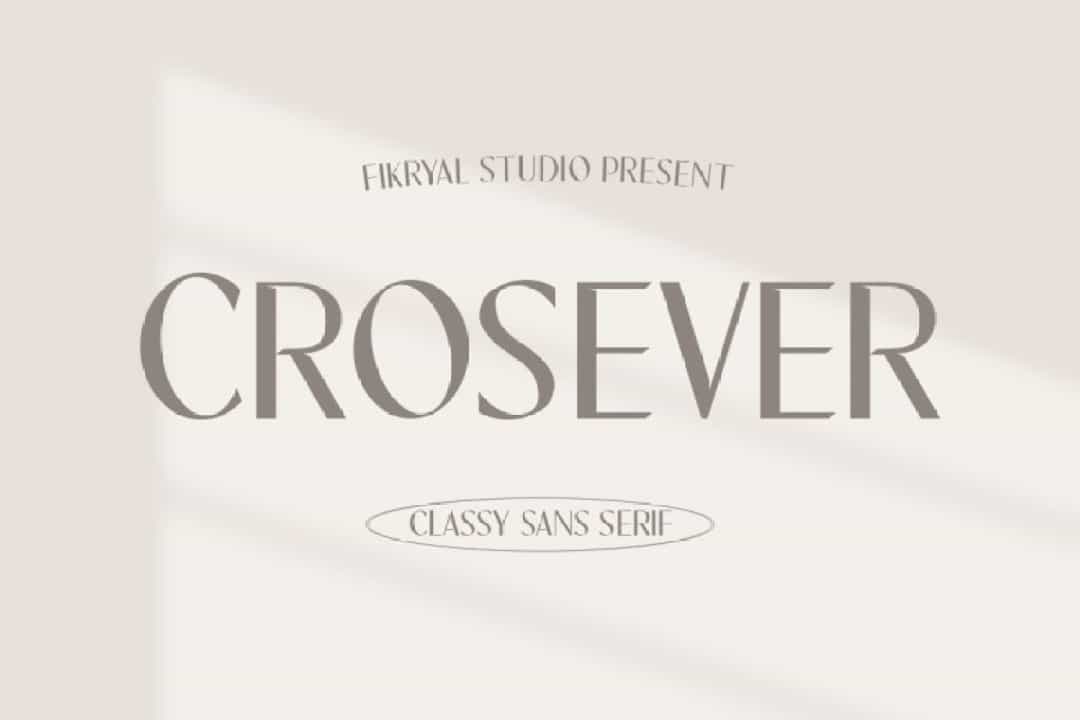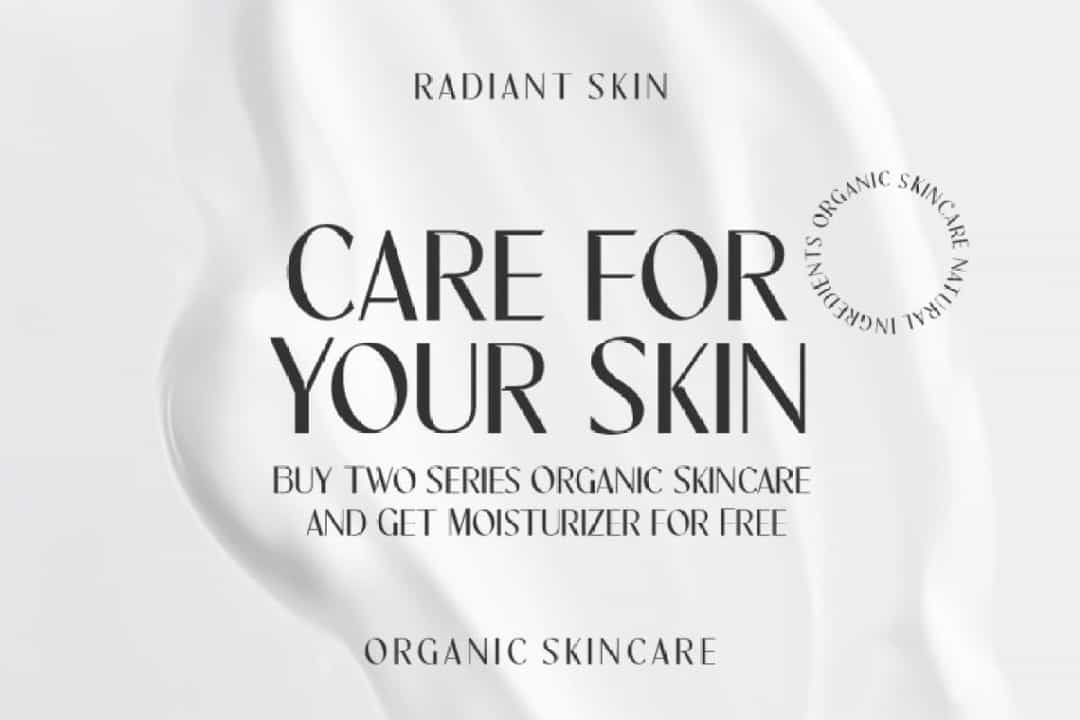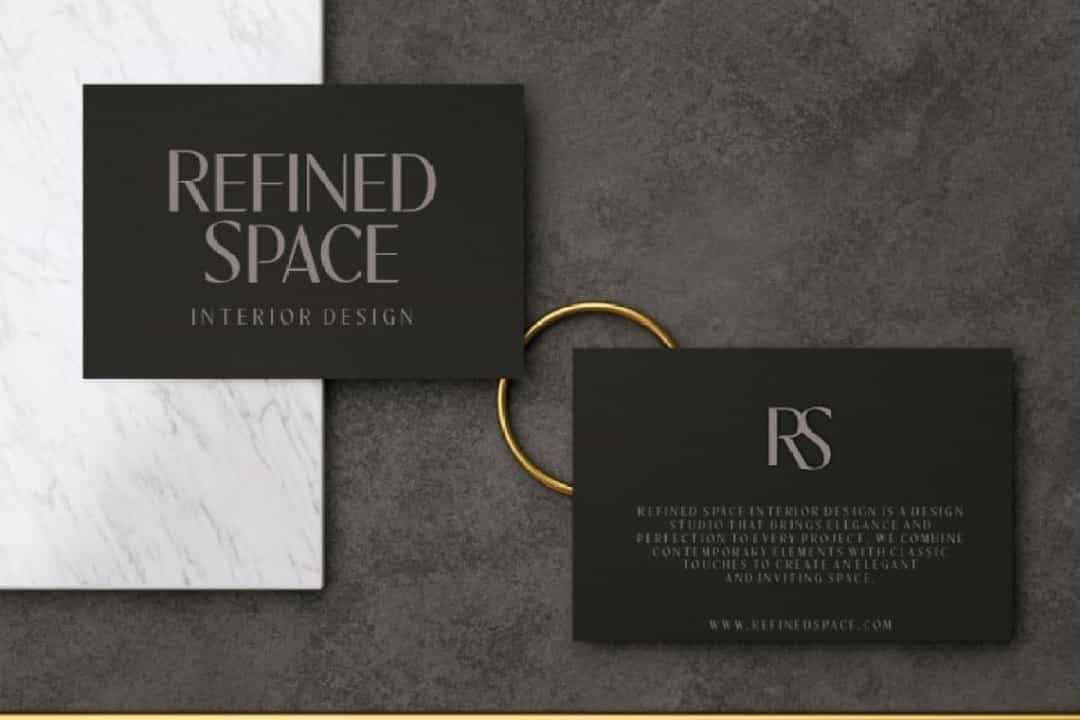
Crosever is an elegant yet simple classy sans serif font designed to bring sophistication and style to projects requiring elegant forms with sharp corners. Created to give any project that calls for sophisticated yet minimalist appeal a professional edge, Crosever Classy makes its presence known with every use..